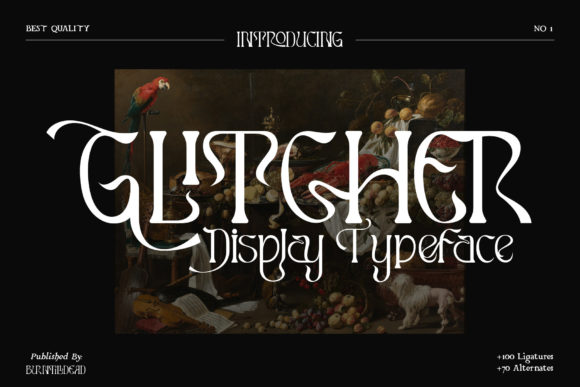
Journey through time and embrace the allure of vintage aesthetics with Glitcher Font, a display font that captures the essence of yesteryear's charm. Its distinctive wavy lines and neat structure bring a touch of nostalgia to your designs, evoking memories of classic logos, retro posters, and timeless typography.
With Glitcher Font, you'll embark on a creative voyage, transforming your projects into captivating visual masterpieces. From eye-catching headlines to captivating branding, this font adds a touch of sophistication and elegance to every letter. Whether you're a seasoned designer or just starting your creative journey, Glitcher Font is your gateway to creating designs that resonate with a timeless appeal.
Its PUA encoding makes it incredibly versatile, allowing you to effortlessly access all the glyphs and swashes, opening up a world of creative possibilities. Unleash your imagination and let Glitcher Font guide you through a realm of vintage beauty and contemporary style.
Join the ranks of discerning designers who appreciate the beauty of classic typography and embrace the power of Glitcher Font. Experience the satisfaction of creating designs that stand the test of time, leaving an indelible mark on your audience's minds.